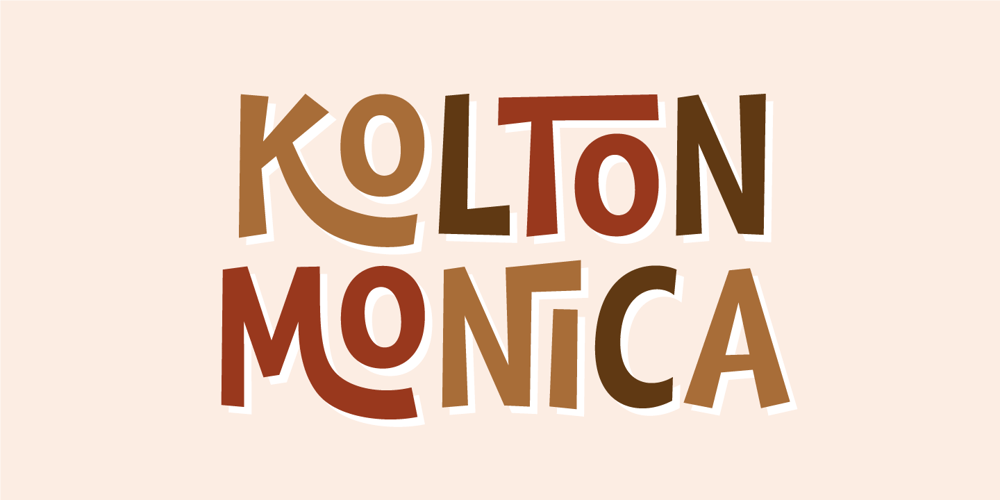
Kolton Monica Font Family was designed by Akhmad Reza Fauzi and published by Grezline Studio. Kolton Monica contains 1 styles and family package options. Kolton Monica is a fun and playful font with lot of alternate glyphs. This font is the perfect match for kids and children-theme design. Kolton Monica font is ideal for logos, posters, packaging, banner, and other creative projects that demand cheerful vibe and fun elements.Feature :- Ligature & Alternate glyphs- Multilingual Language- Works on PC & Mac- Simple installations- Accessible in the Adobe Illustrator, Adobe Photoshop, Adobe InDesign, even works on Microsoft Word.